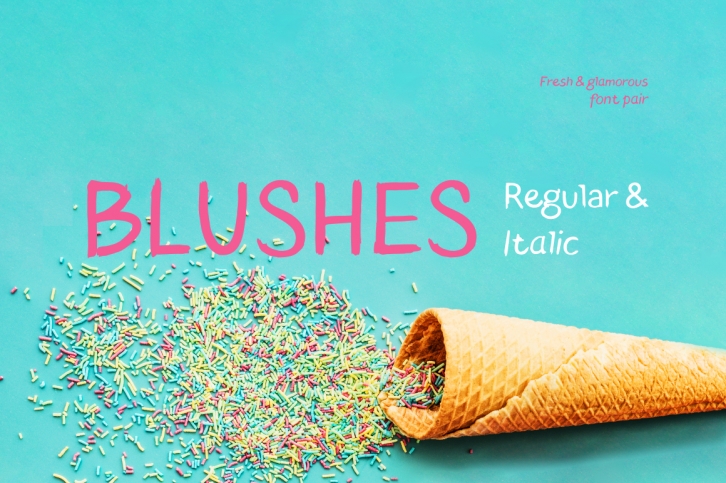
Blushes Regular & Blushes Italic is a great font that was designed by Pinata. Imagine the amount of combinations you can create using this font! The archive is 14.26 MB and it was released on July 31, 2017. Blushes Regular & Blushes Italic looks beautiful on wedding invitations, greeting cards, logos, posters, labels, t-shirt designs, logos, business cards and is perfect for use in ink or watercolor works, fashion, magazines, packaging and food menus, children's books and more!